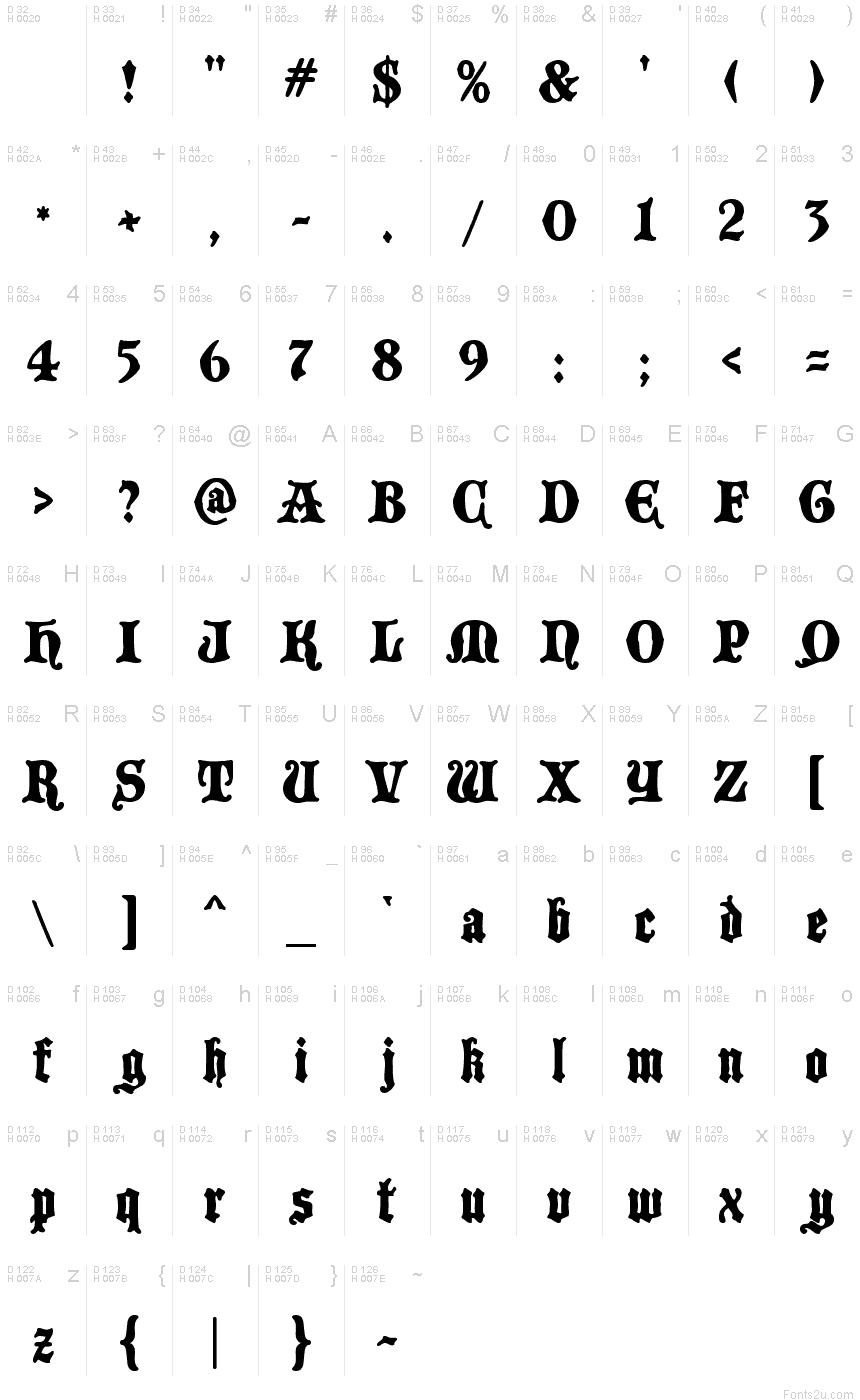
BlackCastleMF
Black Castle MF font by Rick W. Mueller is a free gothic medieval typeface that looks like it’s been pulled straight from a crumbling storybook. Heavy, inky strokes and jagged silhouettes give every word a brooding, fortress-like presence, while the rounded inner curves keep it from feeling stiff or unreadable. It has that candlelit, stone-wall atmosphere baked into each letter, making even short titles feel like chapter openings to some lost legend.
Using Black Castle MF, this free font shines on fantasy book covers, RPG campaigns, metal band logos, haunted attraction posters, themed restaurant menus, and renaissance fair branding. The spacing is tight and dramatic, so it works best large, where the ornamental shapes can really breathe. Pair this gothic typeface with a clean, light sans serif for body text to keep layouts clear while the medieval personality takes center stage.